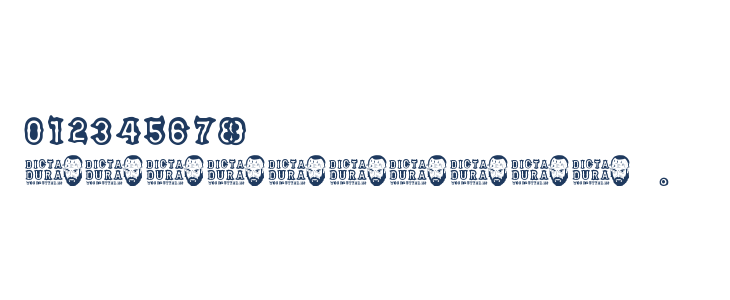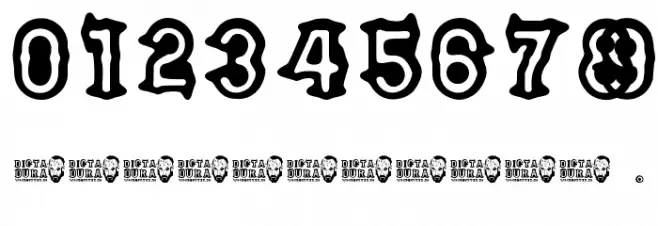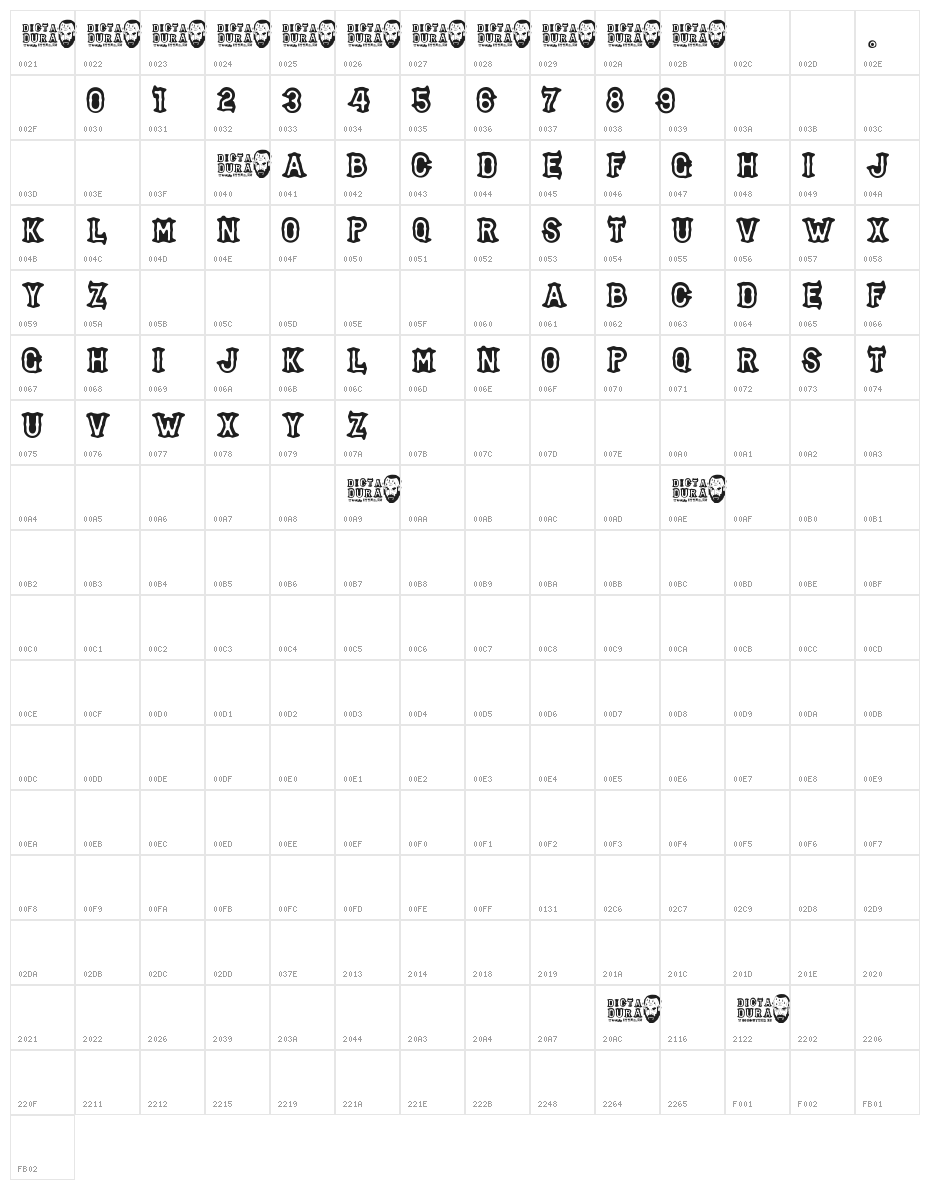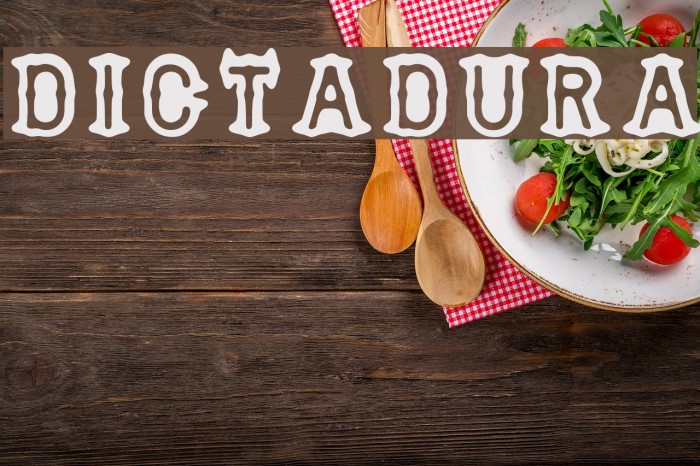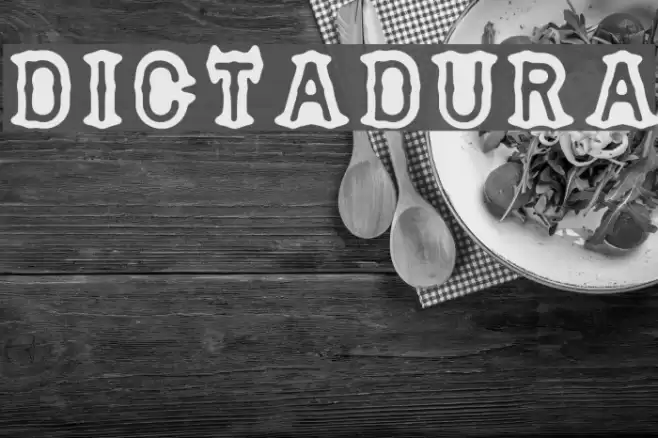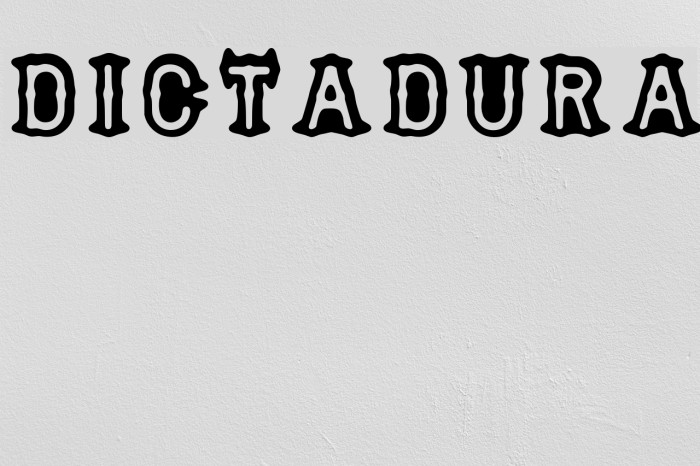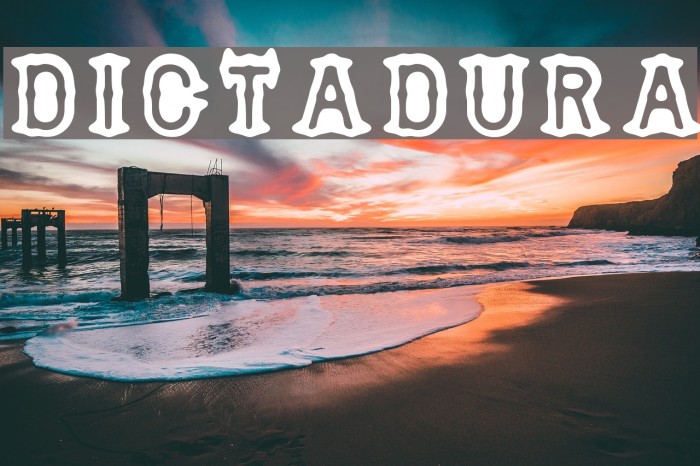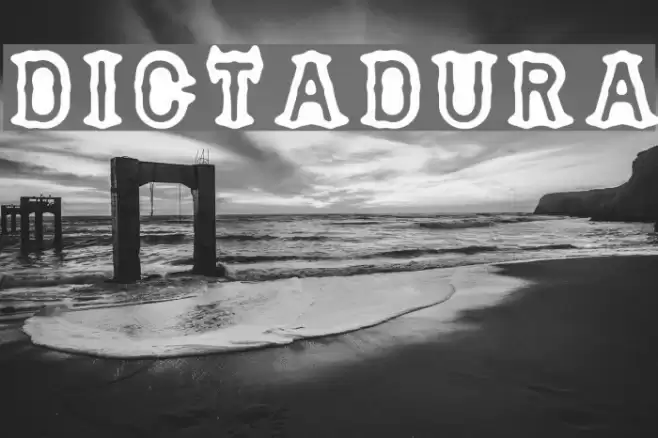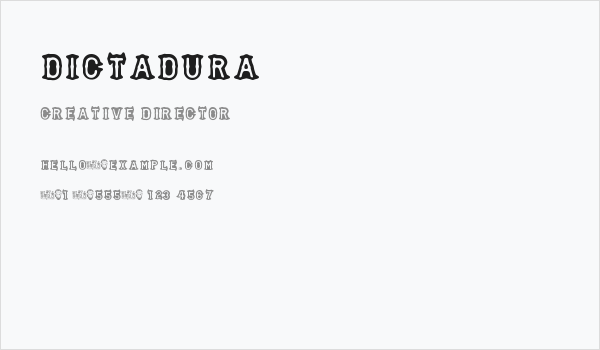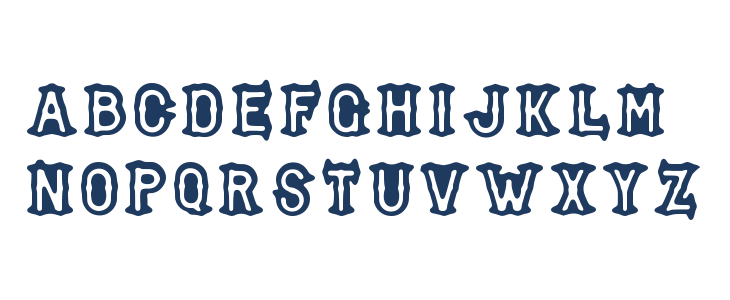
DICTADURA Font
DICTADURA Description
This font features a bold and decorative style with a strong presence. The characters are outlined with a thick black border, creating a striking contrast against the inner white space. Each letter has a unique, slightly irregular shape, adding a playful and dynamic feel. The font is reminiscent of vintage circus or carnival posters, with an emphasis on boldness and attention-grabbing aesthetics. The numbers and special characters maintain the same bold outline, ensuring consistency across all glyphs. This font is ideal for projects that require a strong visual impact and a touch of nostalgia.
| Proposed Projects | Ideal for posters, logos, event invitations, and any design needing a bold, vintage flair. |